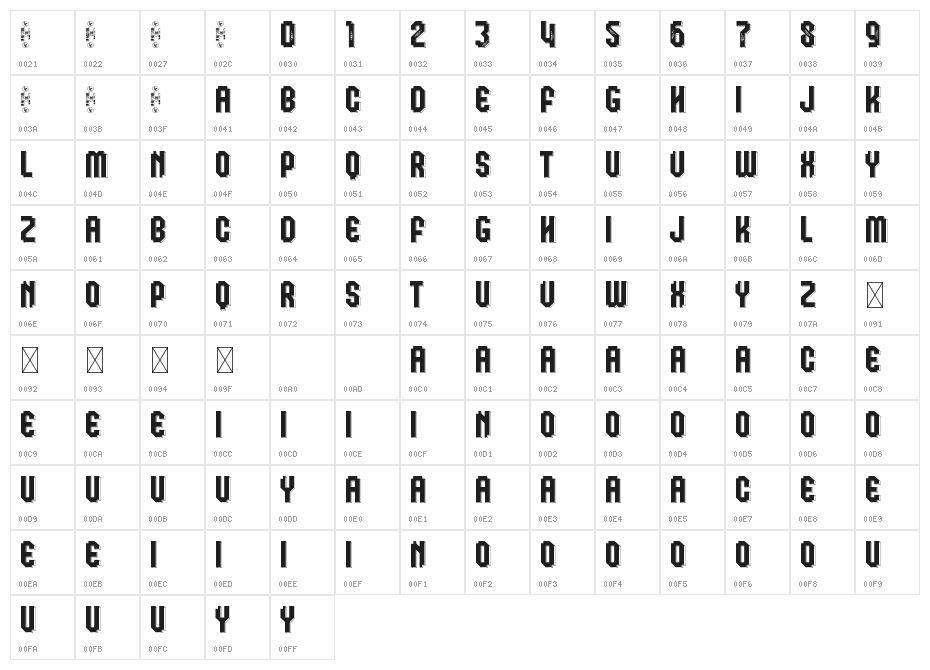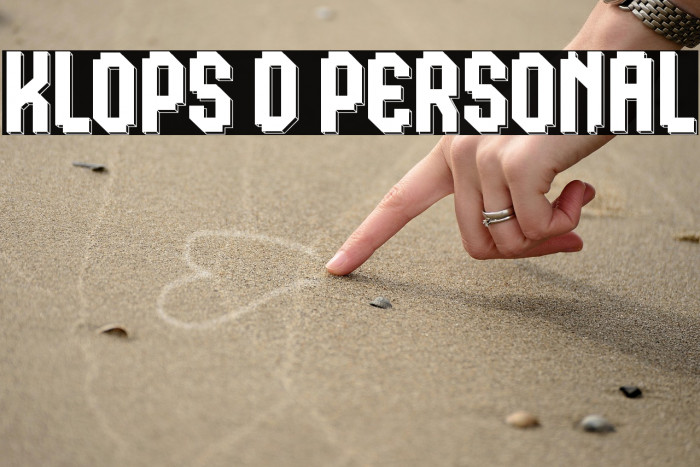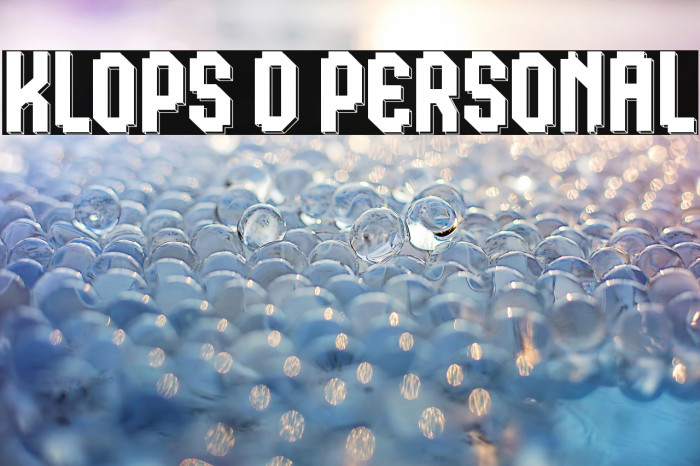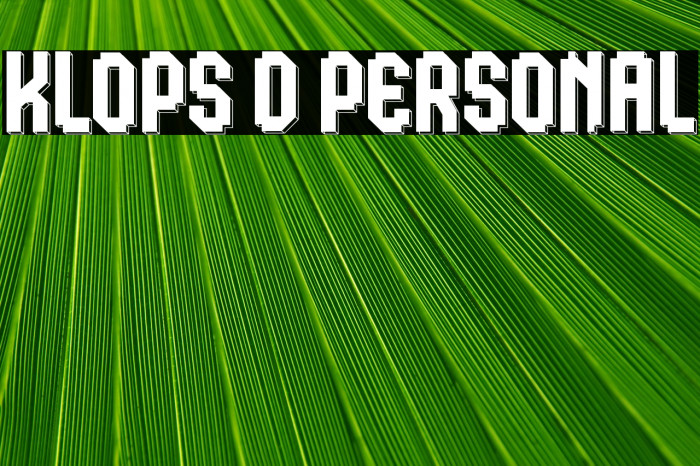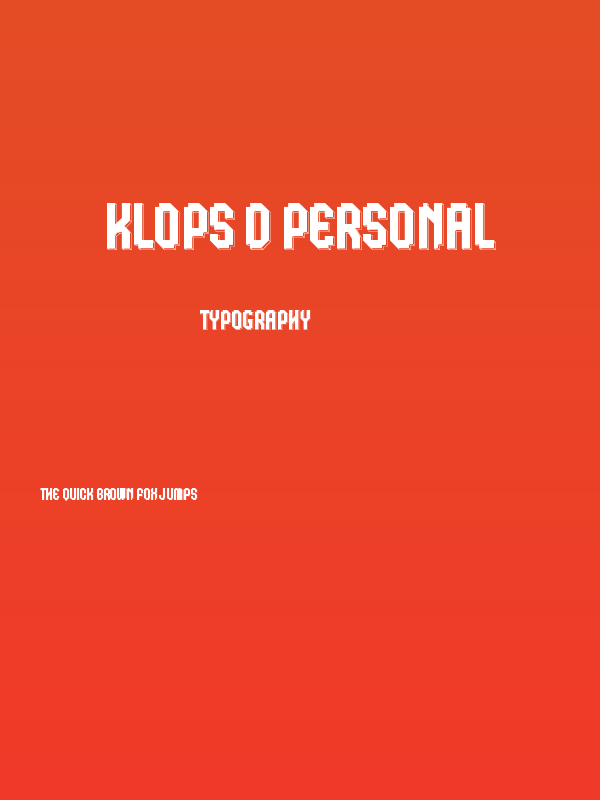
Klops D Personal Font
Klops D Personal Description
This font features a bold, geometric style with a three-dimensional effect that gives it a striking and impactful appearance. The characters are constructed with sharp angles and thick lines, creating a sense of depth and solidity. The design is reminiscent of industrial or urban aesthetics, with a modern twist. The uppercase letters are particularly dominant, with a consistent height and width that contribute to a uniform look. The numbers and special characters maintain the same boldness, ensuring cohesion across all elements. This font is ideal for making a statement, with its eye-catching design and strong visual presence.
| Proposed Projects | This font is well-suited for projects that require a strong visual impact, such as posters, logos, branding materials, and headlines. Its bold style makes it ideal for urban-themed designs or any project that aims to convey strength and modernity. |